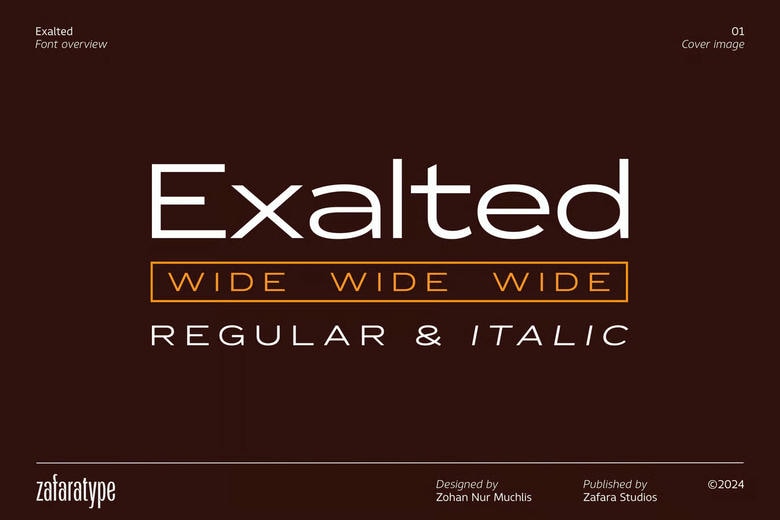
Exalted Wide Font
Exalted Wide is a geometric font known for its strength and clarity. Its clean lines and sharp angles create a precise, powerful appearance. The bold shapes draw from circles, squares, and triangles, while the even stroke width emphasizes its clean design.
Exalted Wide is versatile and fits well in editorial design, branding, graphic design, signage, logos, apps, websites, eBooks, and print materials such as flyers, brochures, and magazines.
Exalted Wide Regular Sans Serif Font